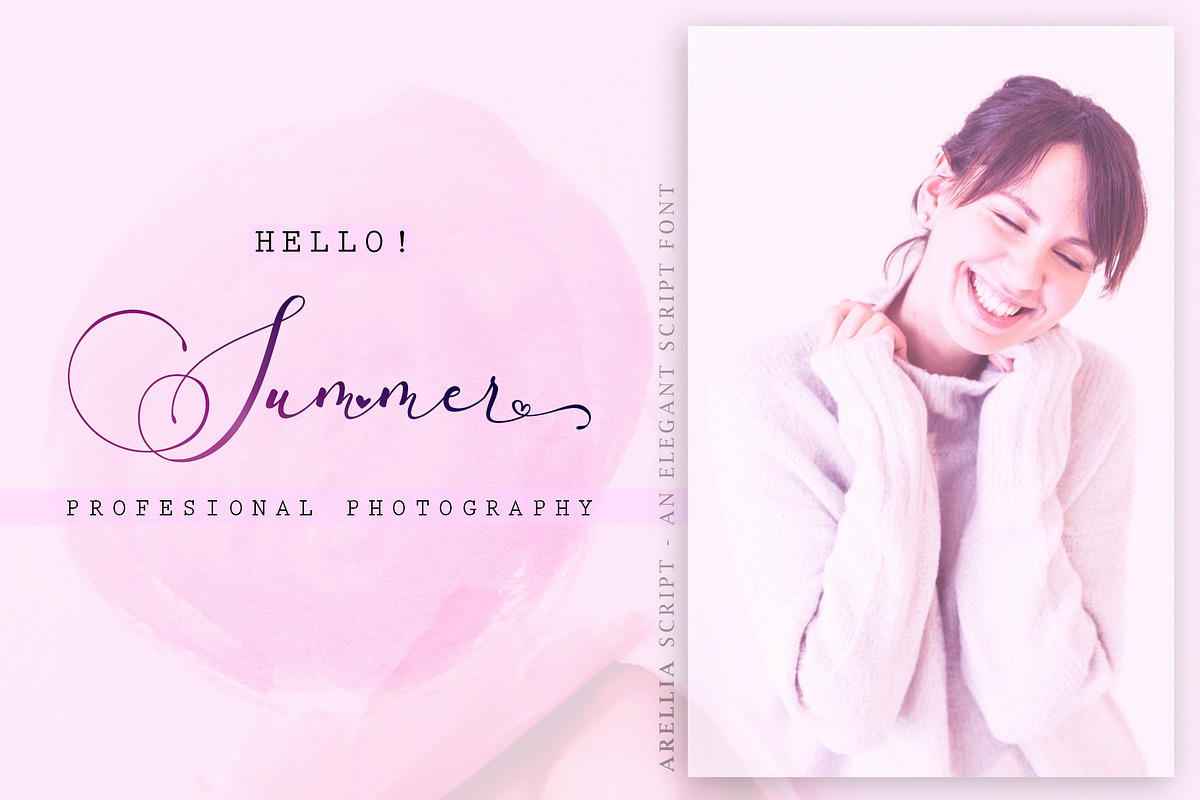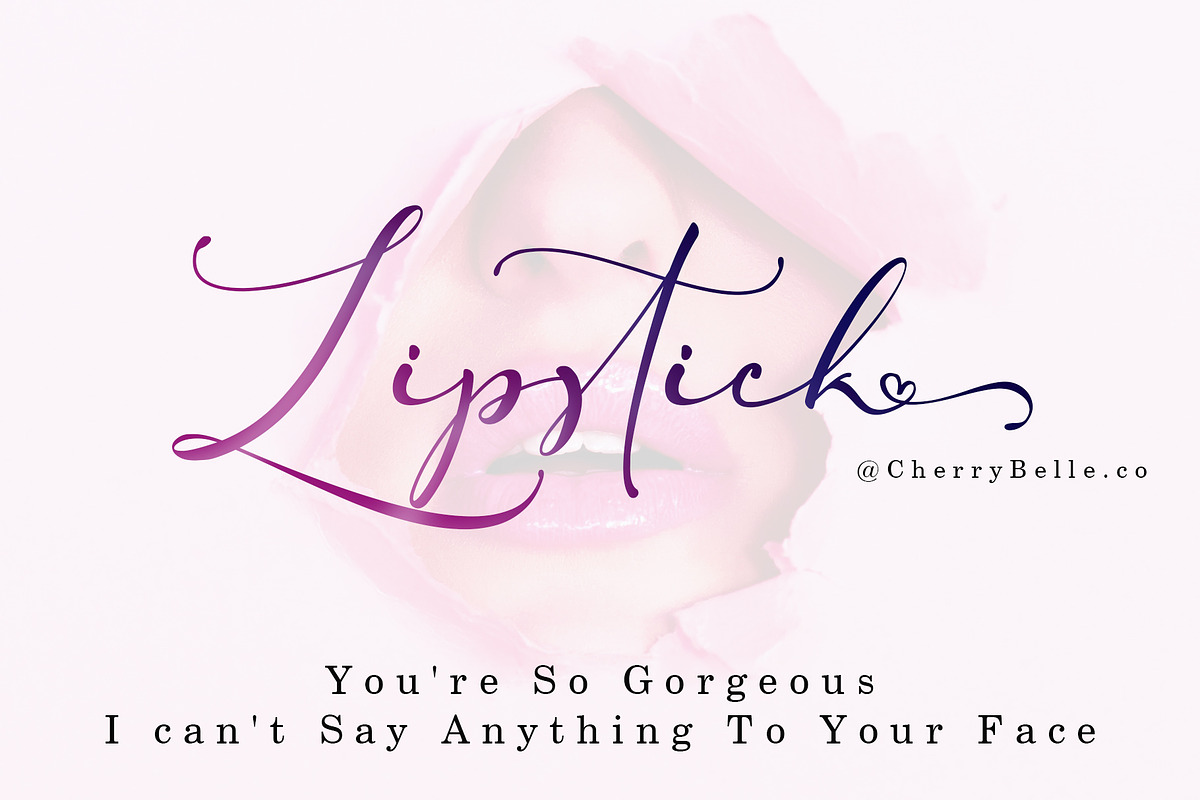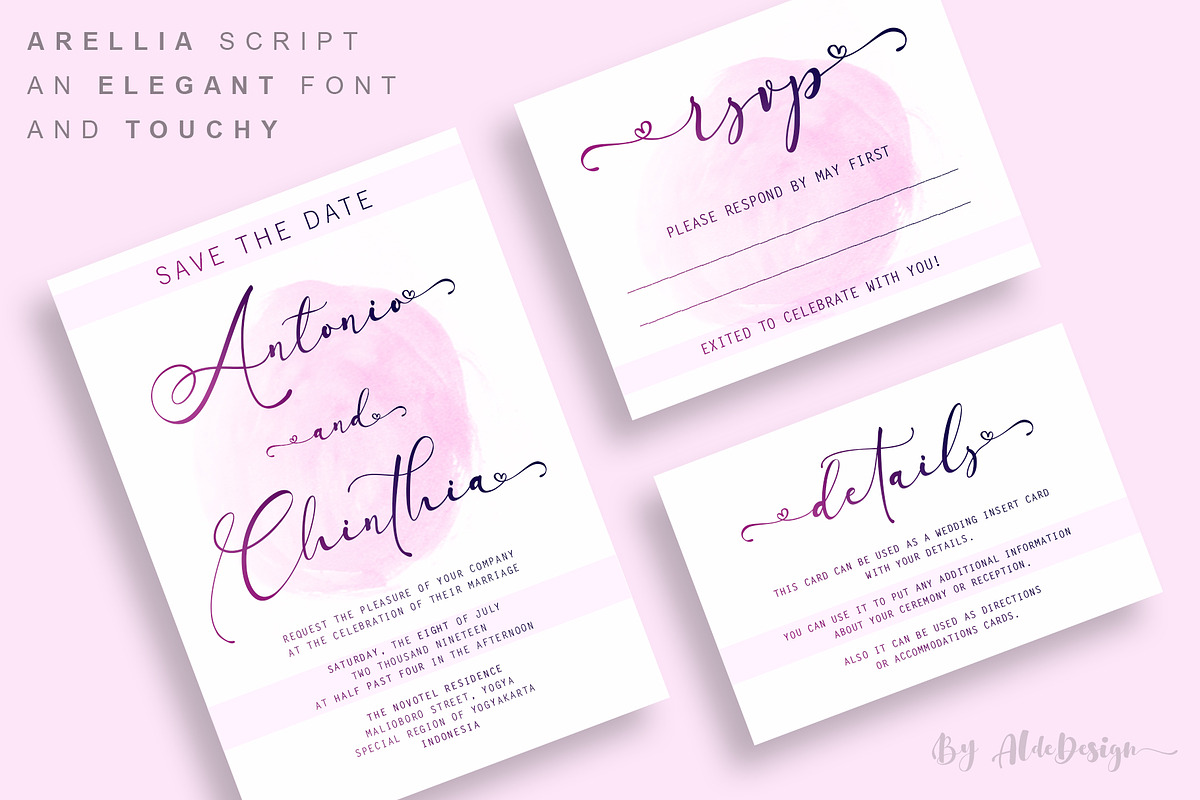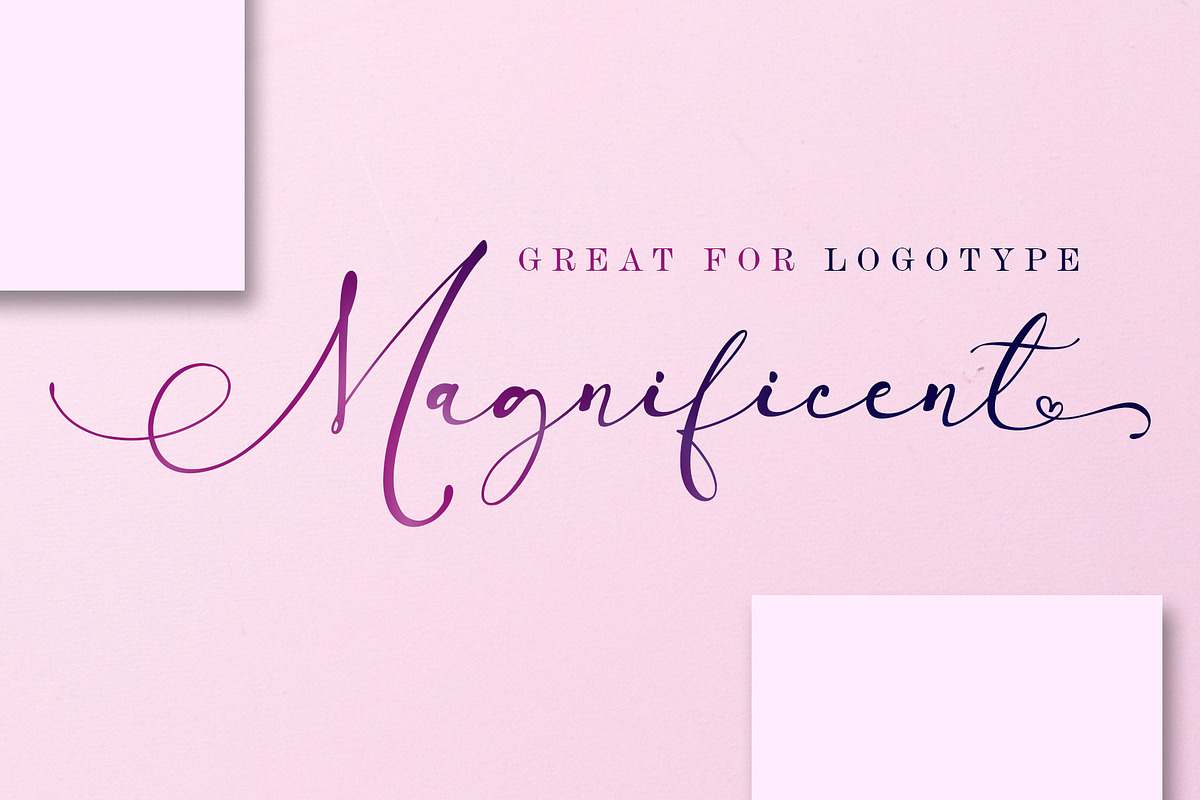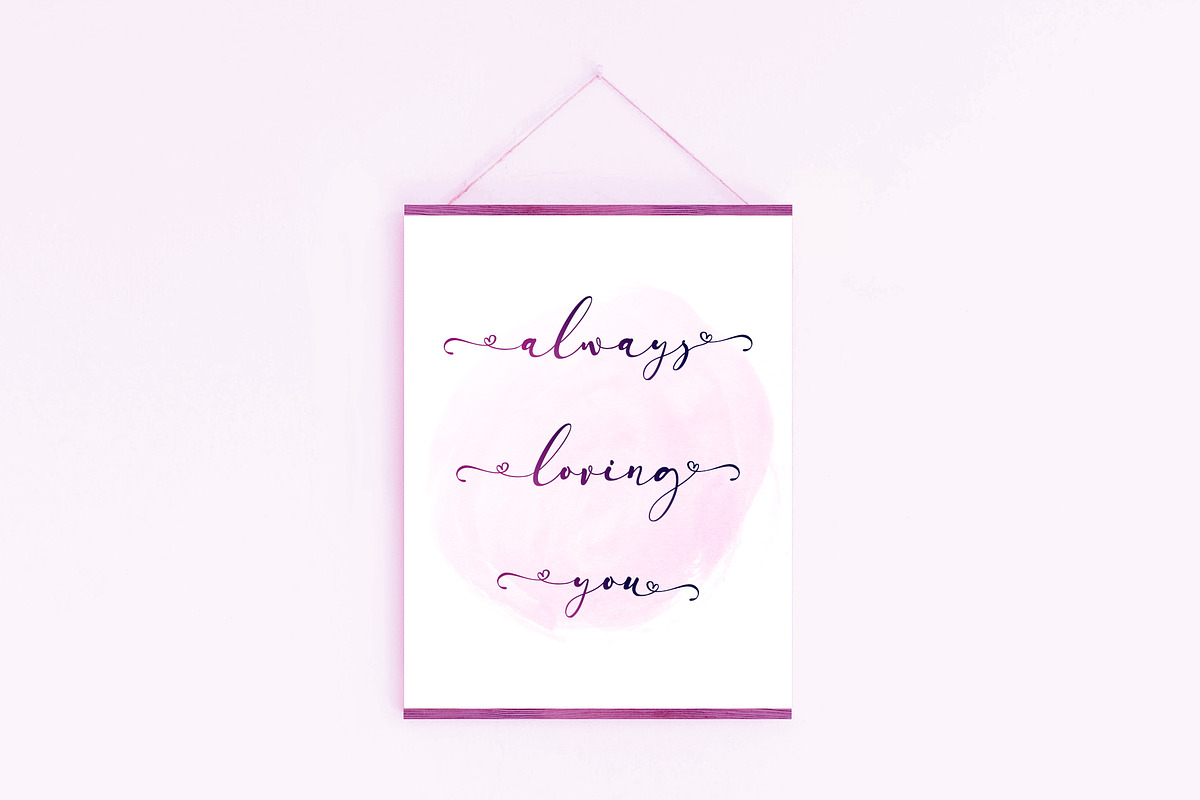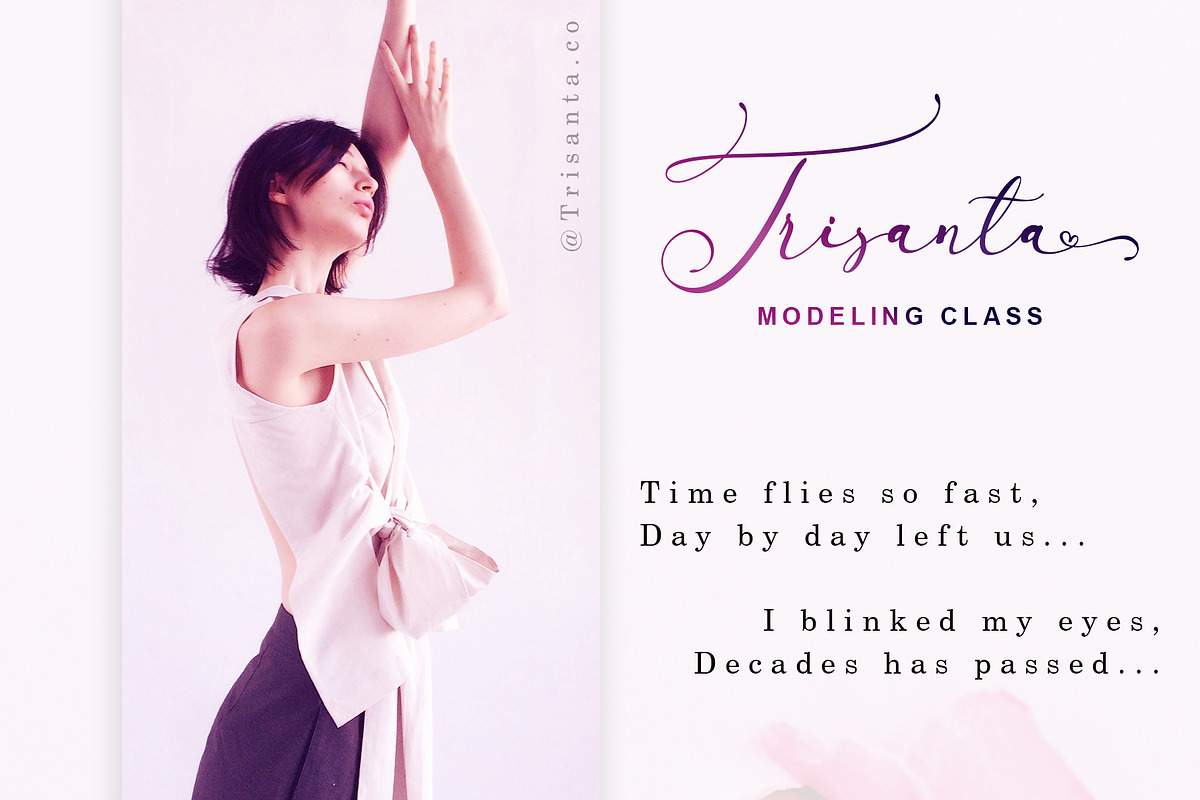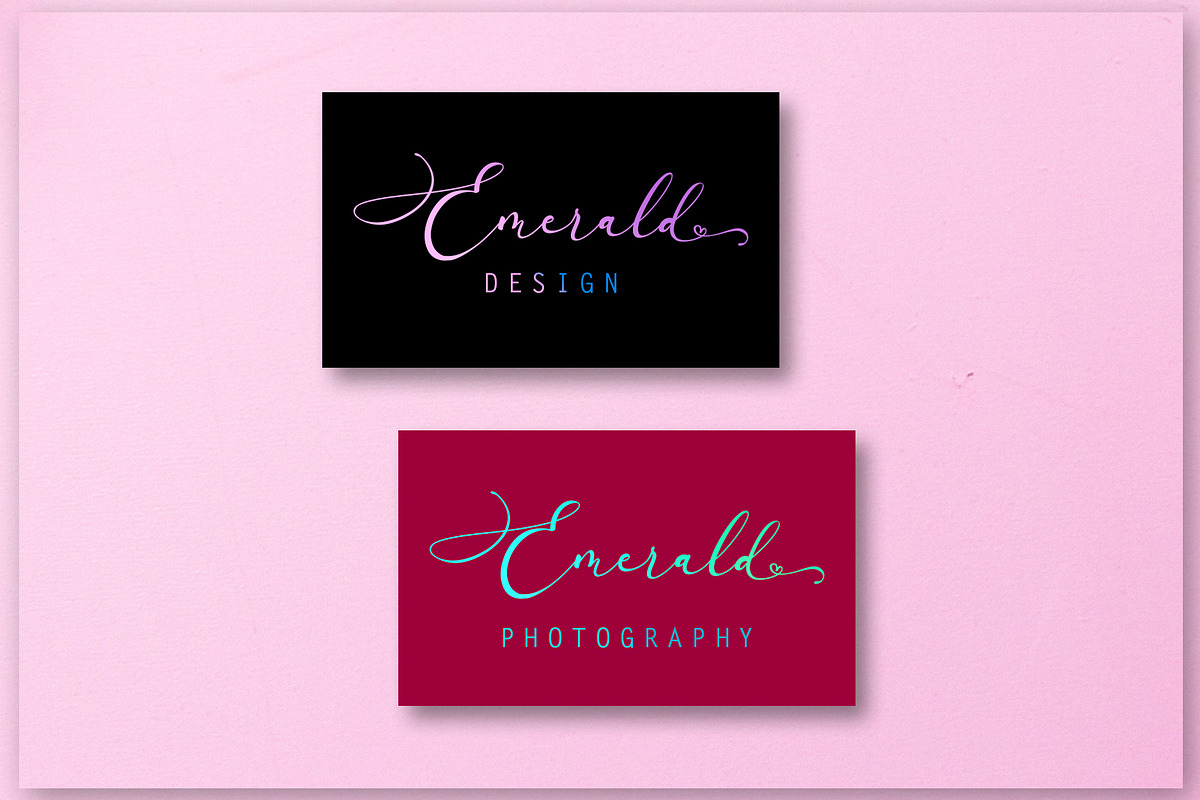
Arellia Script //Luxury Font
Arellia - Beautiful Script is a stylish handwritten font that features a varying baseline, smooth line, modern and with a depth love. For those of you who are need a touch of love and modernity for your designs or branding, it can be used for various purposes such as headings, wedding, invitation, signature, logos, branding, t-shirt, letterhead, signage, lable, news, posters, badges etc.
Just imagine that your customers are women. They love to see something beautiful, elegant, and warm, right? You don’t need to get confused to find an interesting font to attract their attention. We have a special font namely "Arellia - Beautiful Script". The font design looks simple without losing its elegance and warmness. The function of the font is to show that you have a modern spirit to serve high-quality products and services.
We design this font with OpenType features to give an artistic touch on it. This font is also applicable for numbers, punctuation, and other languages. It is also a multifunction font where you can use for a business logo, branding, wedding invitation, and anything you want.
- This font is also applicable for numbers, punctuation, and other languages.